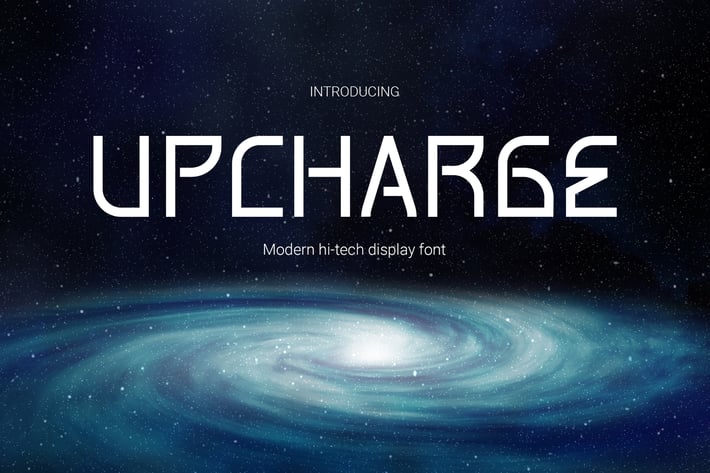
Upcharge Futuristic Tech Font
Upcharge is a cutting-edge futuristic font that embodies the power of technology and innovation. With its sleek and modern design, Upcharge is the perfect choice for future and gadget-segmented magazines, posters, movie titles, music posters, YouTube covers, YouTube thumbnails, social media page covers, and other creative projects that require a strong and dynamic font.
This techno-inspired font features a mix of angular and curved shapes, giving it a unique and futuristic look perfect for projects related to technology, robots, satellites, and space. Whether you're creating a poster for a sci-fi movie or designing a website for a tech startup, Upcharge will add a touch of sophistication and cutting-edge design to your project.